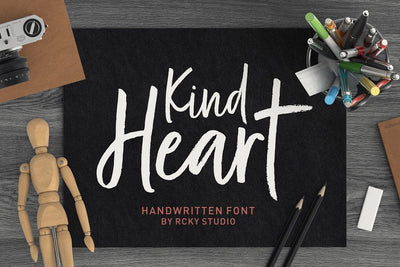
Kind Heart Font Duo
Kind Heart Font is handwritten fresh typeface, created with brushpen. contemporary approach to design hand brushed natural and also a combination of delicate script with an irregular baseline.
Suitable for use in watercolor design or as a hand brushed bold letters. Such as Novel tittle, Apparel, Invitations, Quotes, Books tittle, Stationery Design, Branding, Logos, Greeting Card, T-shirt, Packaging design, Poster and more.
Kind Heart Font includes a complete set of uppercase and lowercase letters, as well as multi-language support, numbers, punctuation, ligatures and alternative character.Also with additional Kind Heart Sans, a font display harmony to be combined with Kind Heart Script.